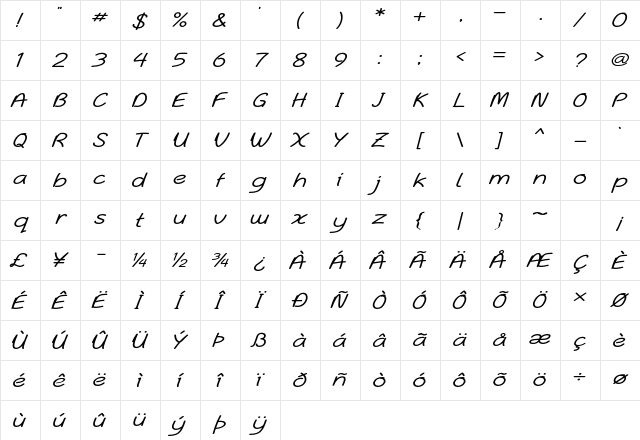
Fluria Expanded Italic
Style: Expanded Italic
Fluria Family
Fluria Expanded Italic
Design Context for Fluria
Fluria is a composed and adaptable typeface that performs quietly and consistently across a wide range of design contexts. The slanted form adds forward momentum and visual energy.
Pro Tip: Use Fluria for emphasis, pull quotes, and subheadings where its slanted energy can add rhythm to the layout.